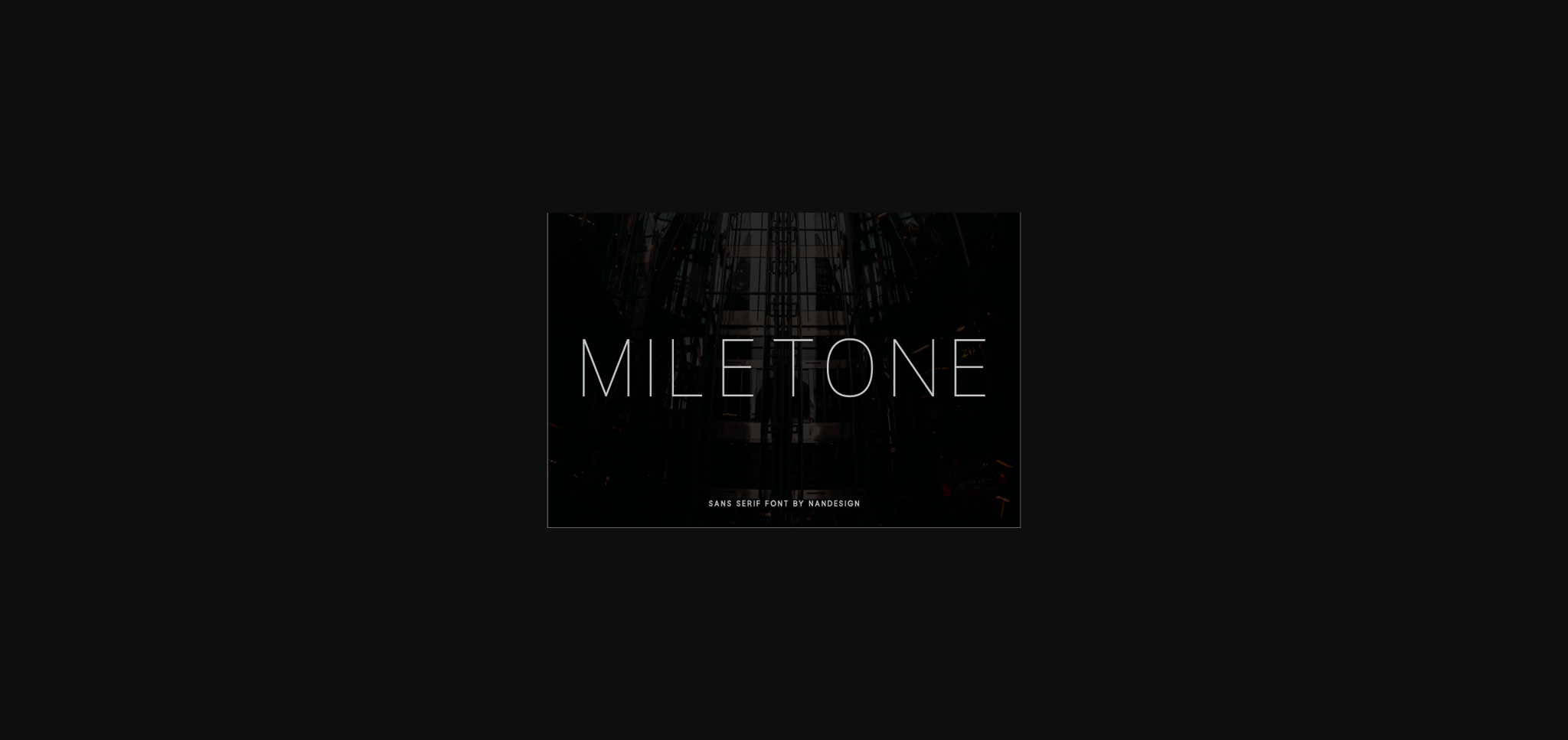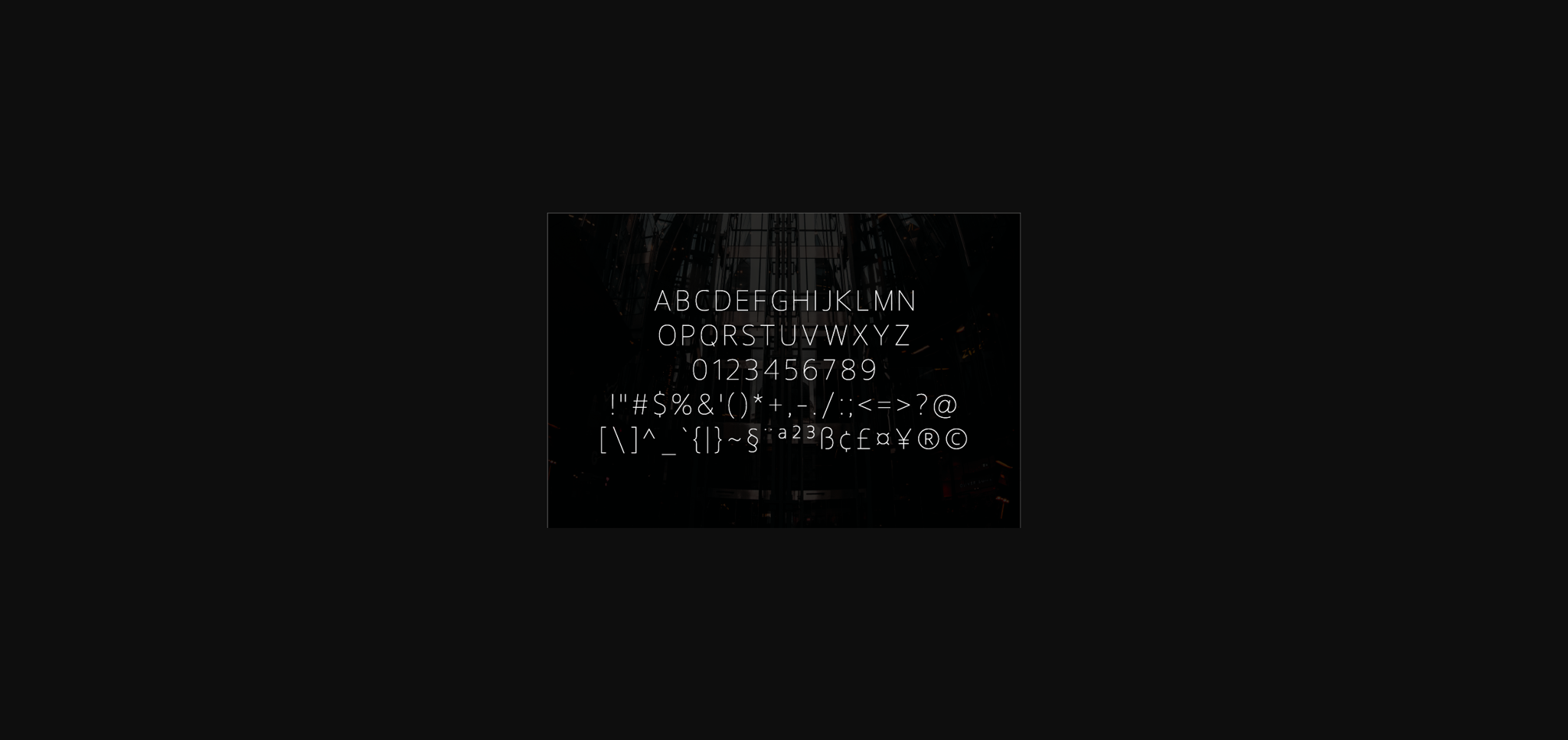
Miletone Font
About Miletone Font
Miletone is a simple and modern sans serif font. It will look outstanding in any context, whether it’s being used on busy backgrounds or as a standalone headline!